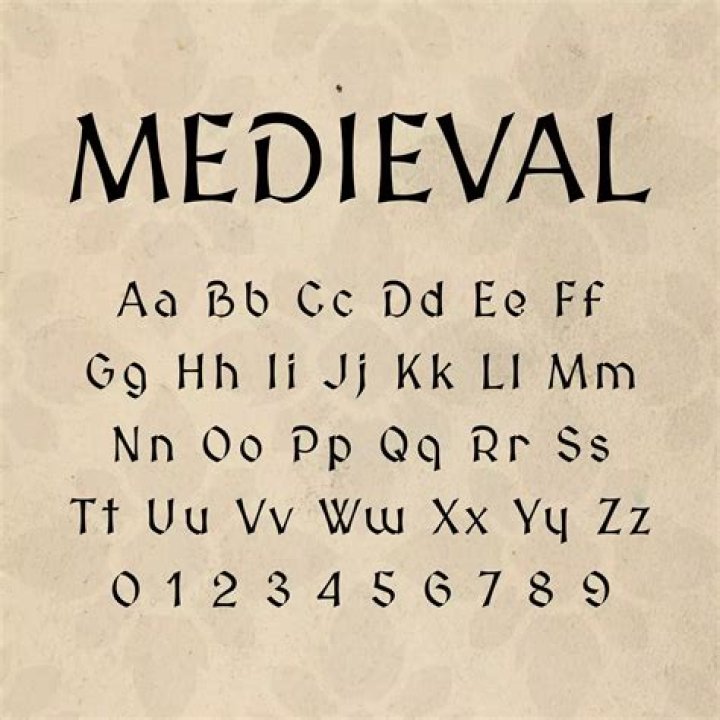
Medieval script tells time, although usually not very precisely. Take for example the three major script families from the medieval period: Caroline minuscule (Fig. 2, sample 1), Pregothic script (Fig. 2, sample 2), and Littera textualis or Gothic script (Fig.
Which font is the most medieval?
Below are the most amazing medieval fonts that you can have a look at and choose the one that you like:
- Ringbearer Font.
- Salterio Shadow Font.
- Traditional Gothic.
- BlackChancery Font.
- DK Northumbria Font.
- MedievalAlphabet Font.
- Kent.
- Fenrir Typeface.
What is the medieval font called on Google Docs?
I created the MedievalSharp font in around 1995 like my other fonts – when I started doing the inscriptions on stone professionally. It’s based on gothic letters.
What is a medieval font on Microsoft Word?
The Blackletter typefaces are also called Old English and Medieval; and the Greek Roman typefaces crossover with the Roman, Serif, and Gothic typefaces.
What font does Old English use?
Monotype Old English Text One of the oldest and best Old English fonts, Old English Text has a real pedigree. Created by Monotype in 1990, it’s based on Caslon Black: a typeface originally cast by William Caslon in 18th century England that combined the design attributes of both the medieval and Victorian eras.
What is Renaissance font?
What is the name of the medieval font?
The medieval fonts, which are also called as Gothic fonts, are a reliable part of contemporary and graphic art fonts design. All of these fonts are attractive and captivating. These fonts play a significant role when it comes to writing and designing.